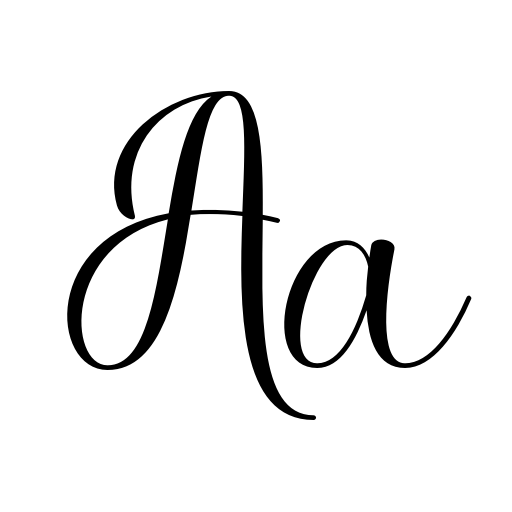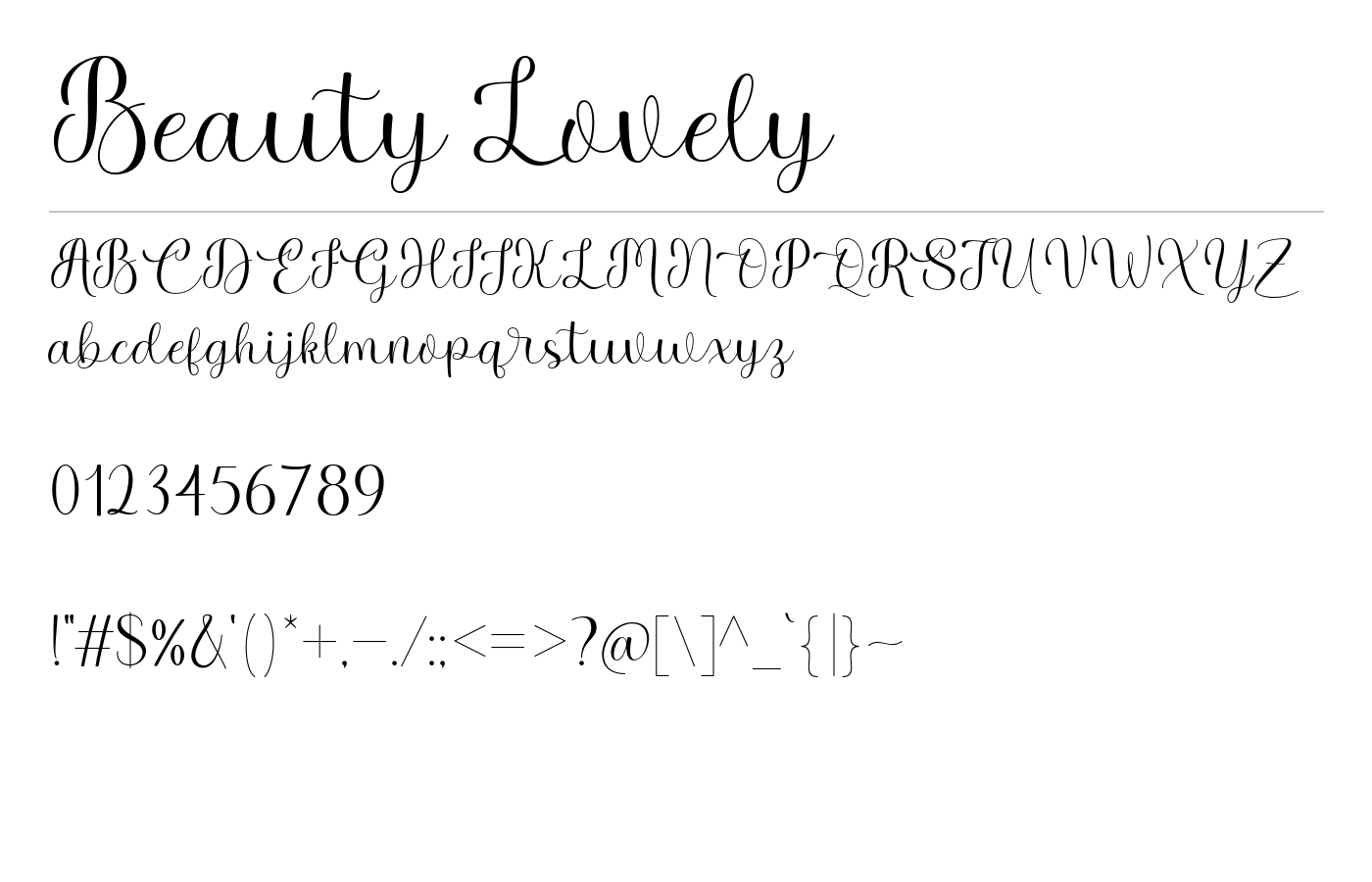
Beauty Lovely Font is a delicate and elegant script typeface characterized by its thin, flowing strokes and graceful curves. Its refined calligraphic style with high contrast and slender letterforms makes it perfect for feminine, romantic, or luxury branding, especially in invitations, beauty products, and fashion design. This font adds a sophisticated and stylish touch to logos, headlines, or decorative text where a light, airy feel is desired.
Beauty Lovely Font
About Beauty Lovely Font
| Font family | Beauty Lovely Font |